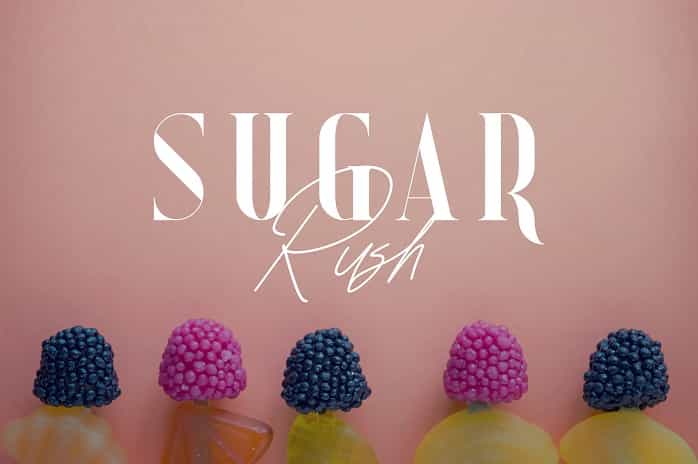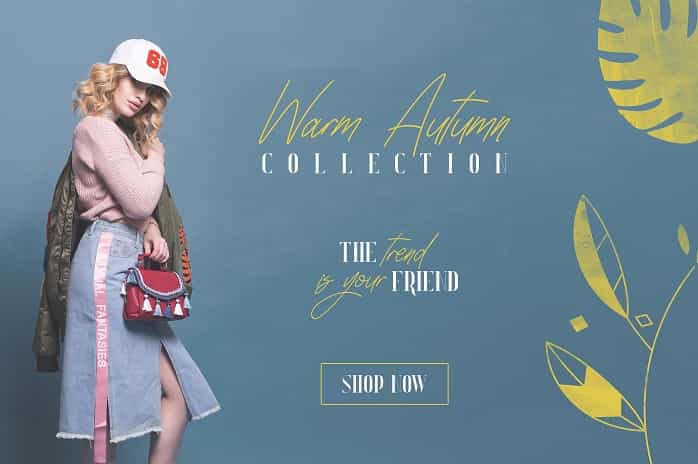
Sugar Spice is a combination of two classy and contemporary fonts, script and serif. A modern & stylish combination of serif and script typefaces. The tall condensed serif font is combined with the free-flowing script companion. Sugar Spice was created and posted by VPcreativeshop. Sugar Spice Font Duo is a classy, clear font duo with 6 font styles and 56 graphic elements as well as multilingual support. It is a very flexible font that can be used in both big and small sizes.